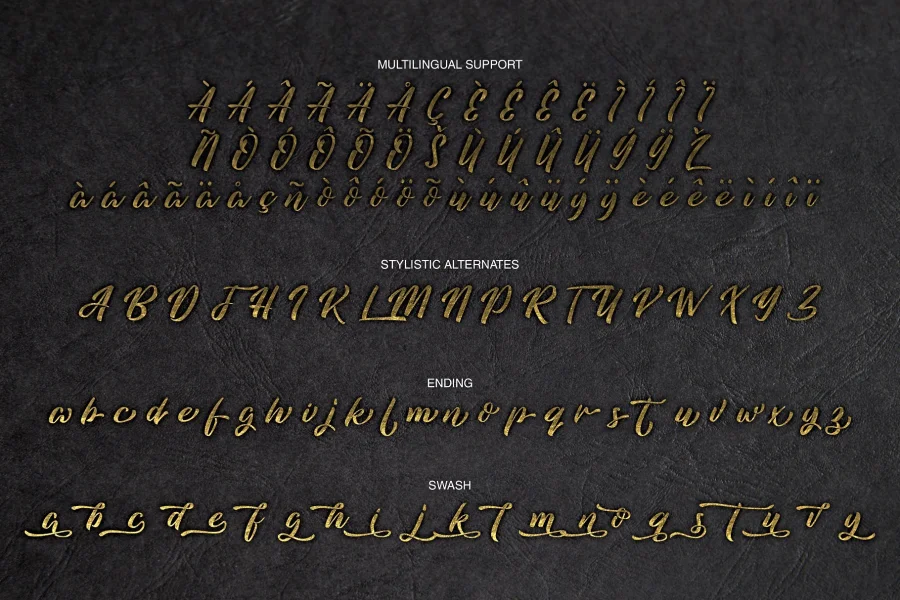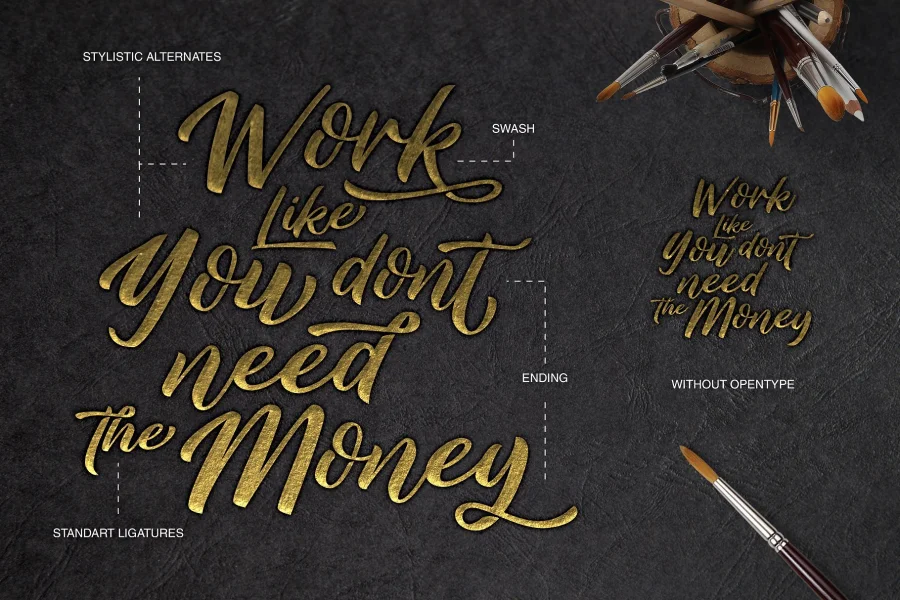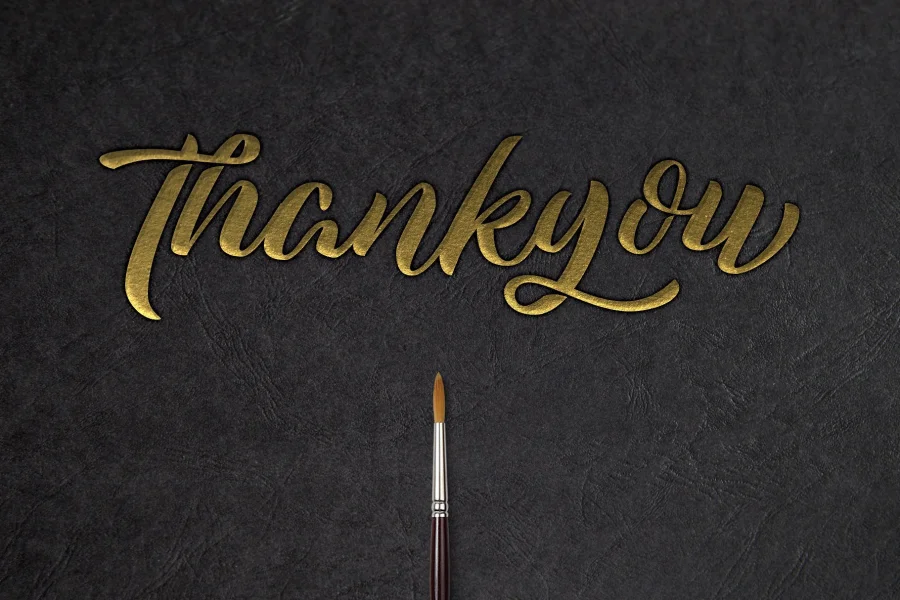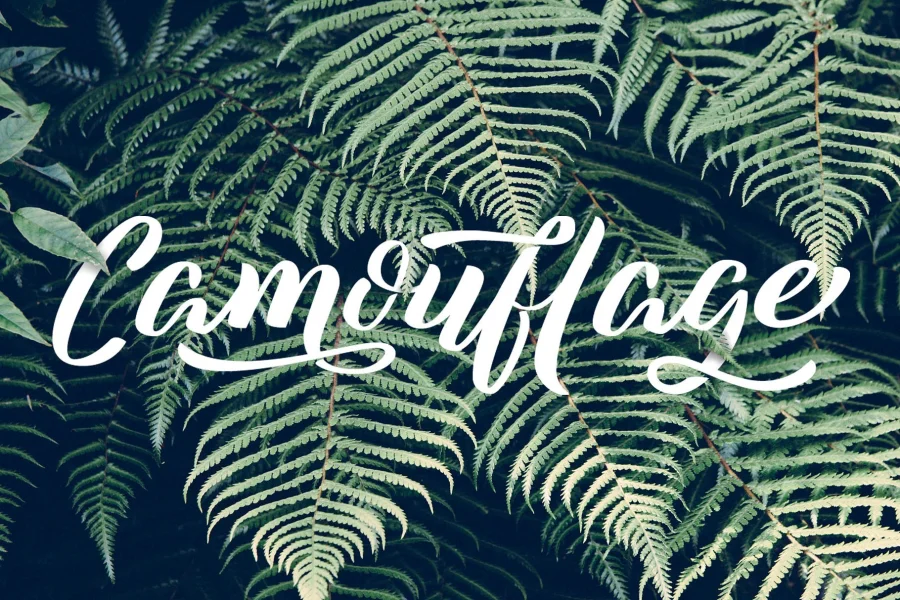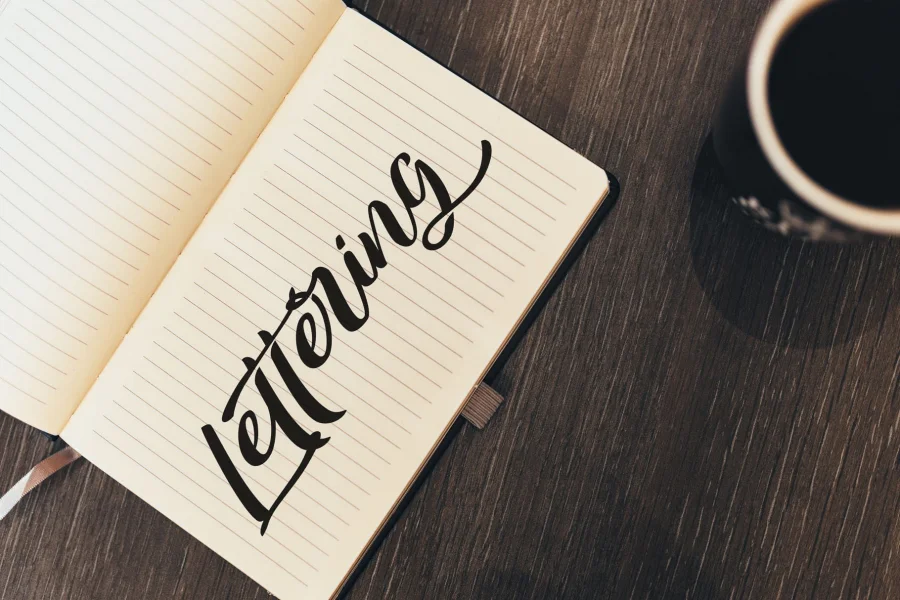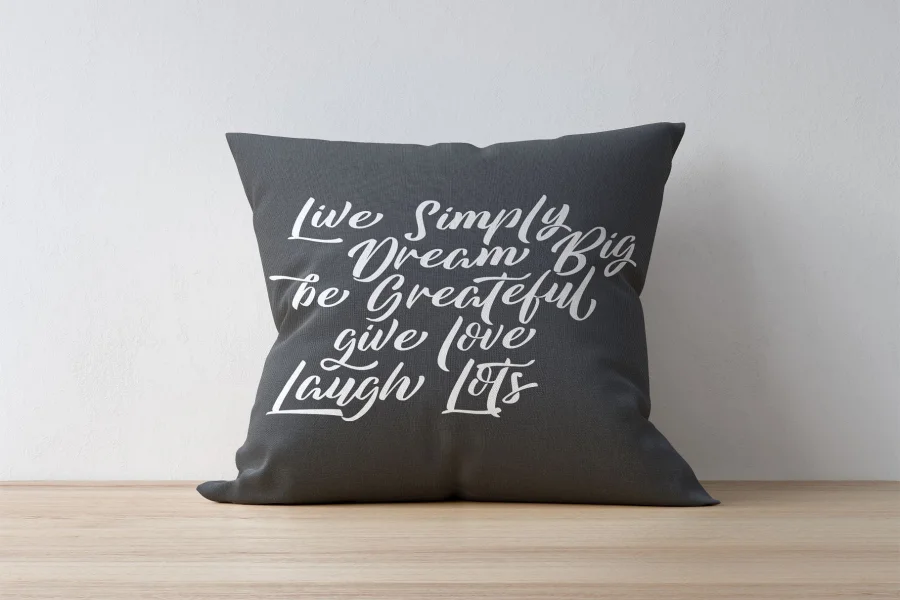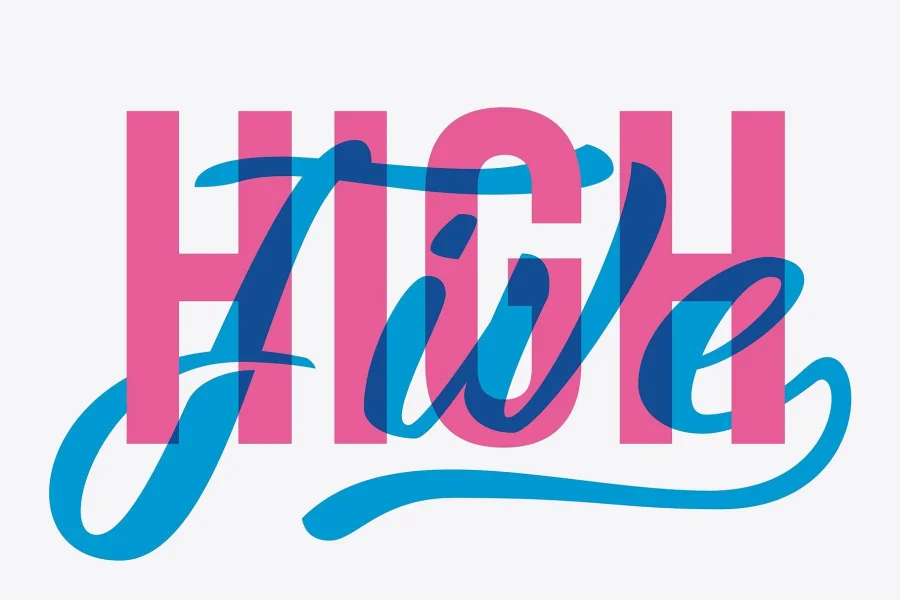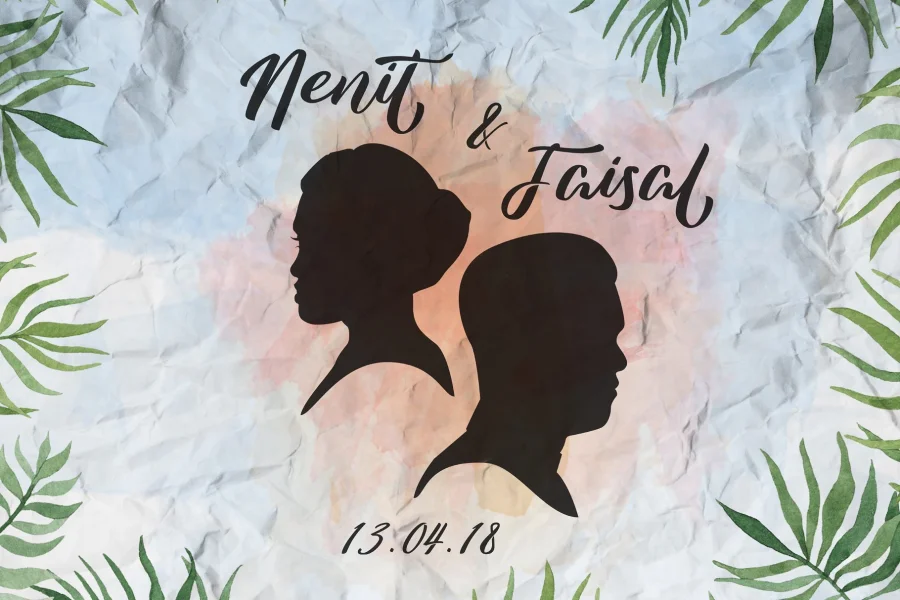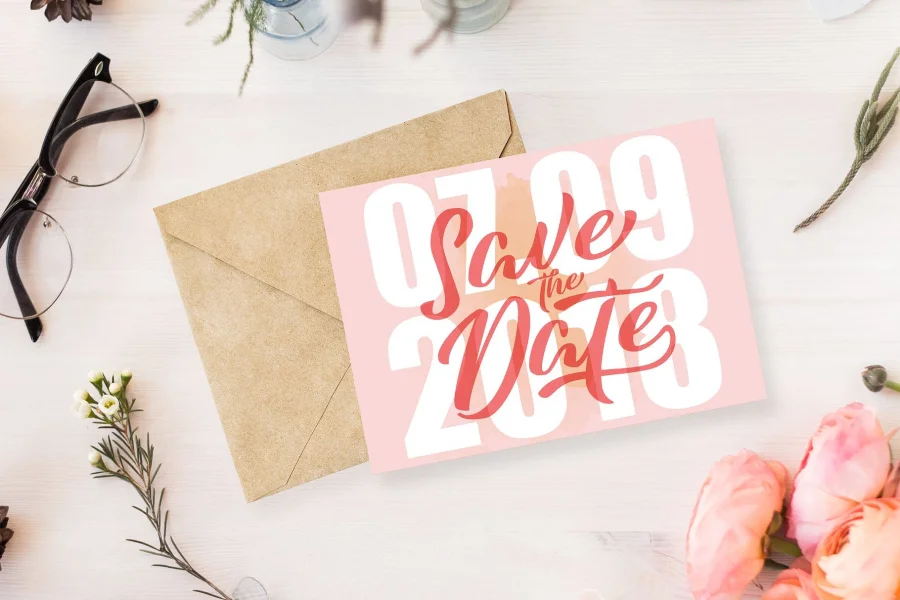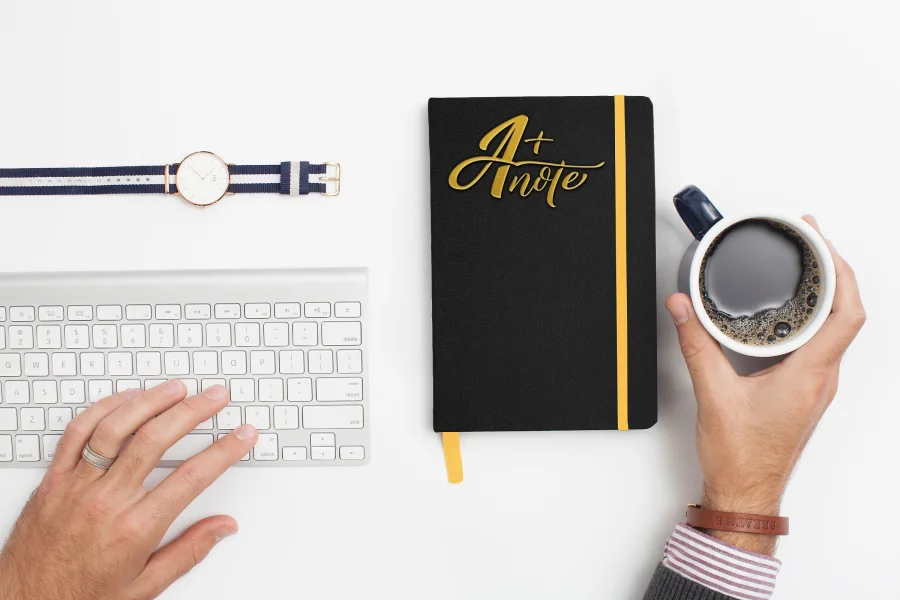
Azkasia Script is a smooth and elegant script font. The commercial version comes with many opentype feature, upper and lower case standard characters, punctuation and numerals, multilingual characters, ligatures, stylistic alternates, swash, and many more glyph.
Perfect for your company logo, branding, poster, flyers, greetings, invitations, book covers, quotes and many more.